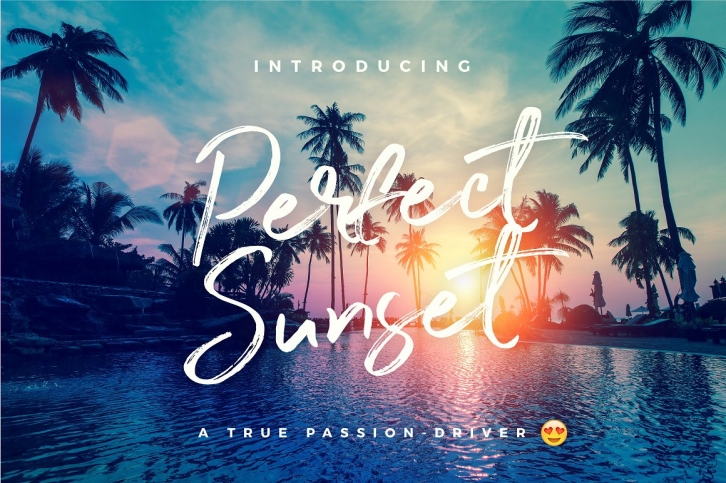
Perfect Sunset Typeface is a trendy and unique font with an authentic style. It was designed by WornOutMedia and it's a great choice for creative people who need such a font. It was released on May 12, 2017 and the file size is 10.82 MB. Perfect Sunset Typeface will add an organic vibe to any design idea!